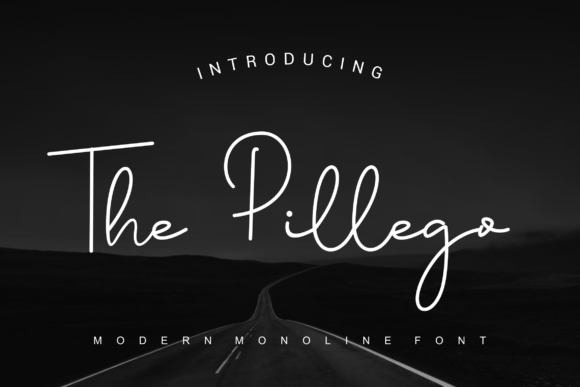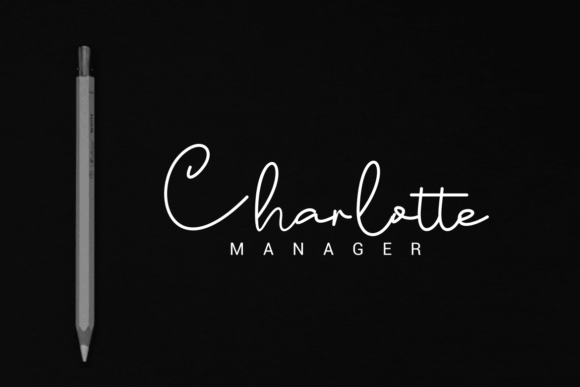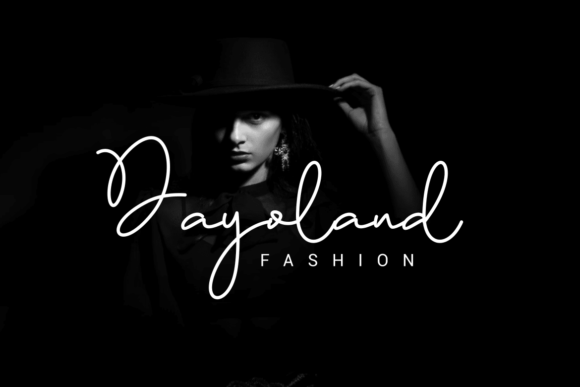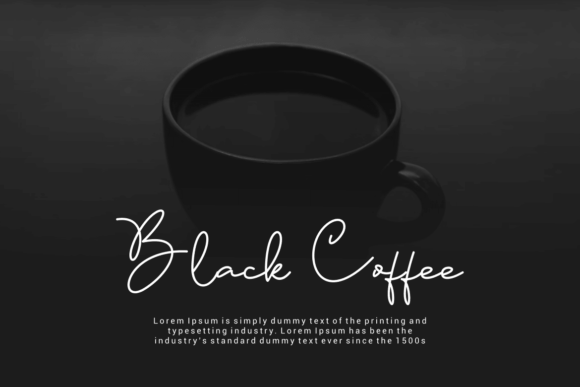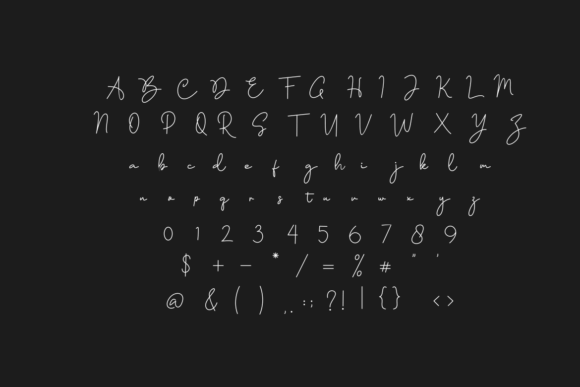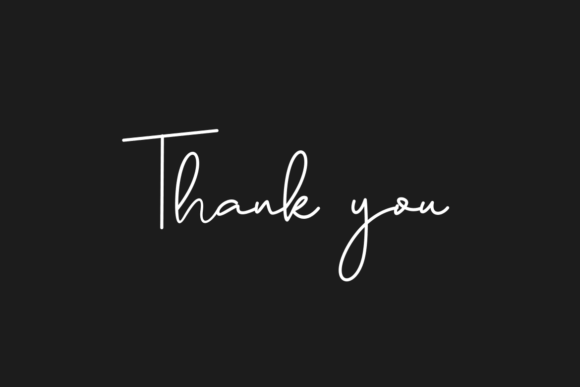
The Pillego Font
About The Pillego Font
Salemon is a thin and authentic script font. The font is suitable for any branding project like logo, t-shirt printing, esports, and many more. It will look outstanding in a wide range of contexts.